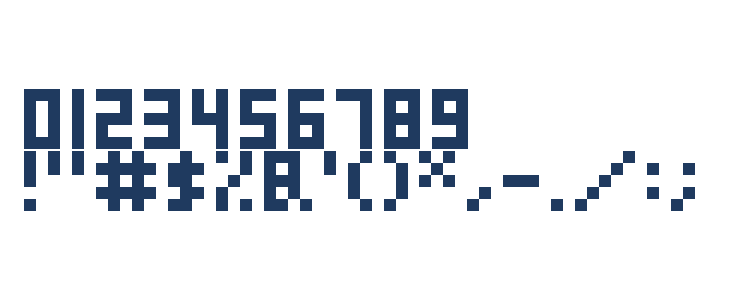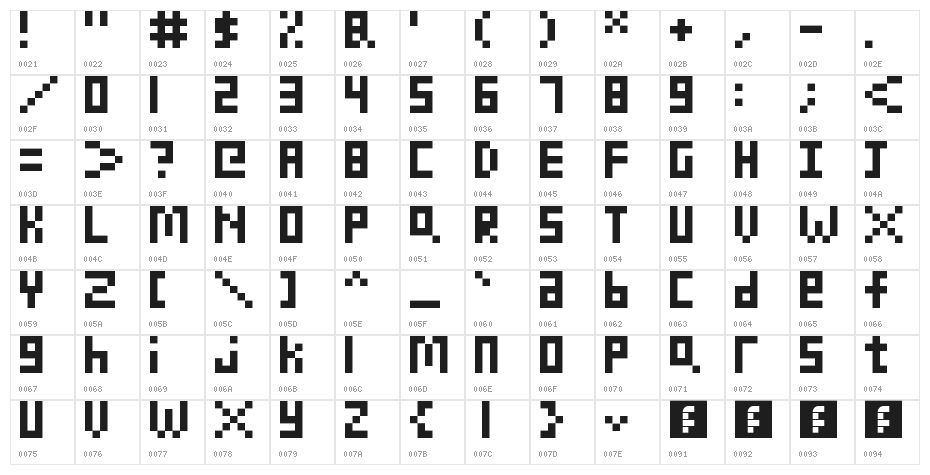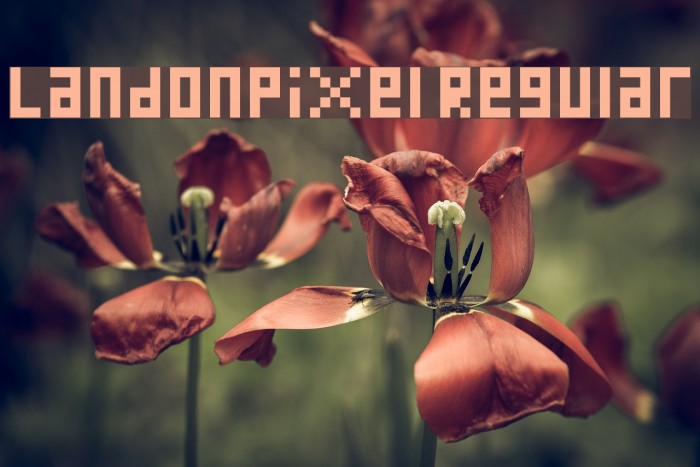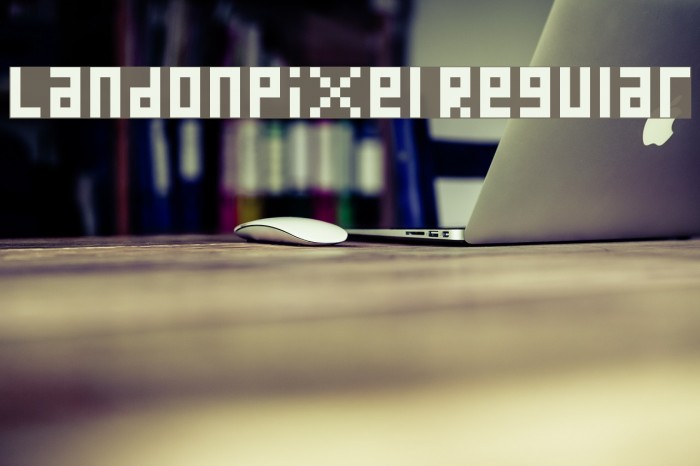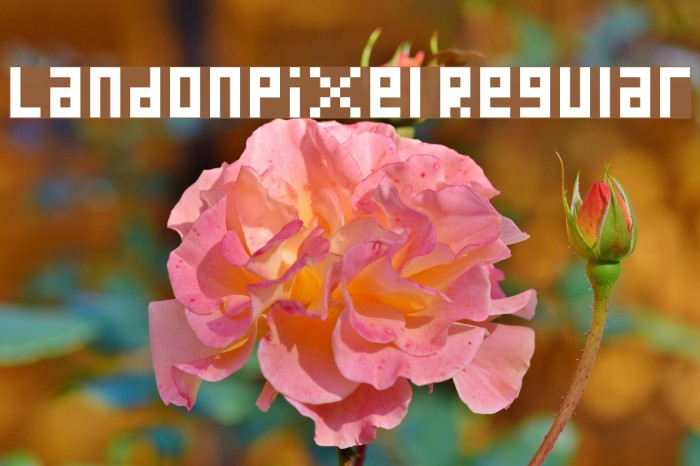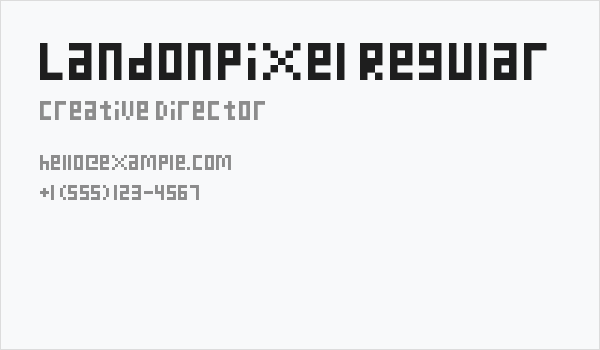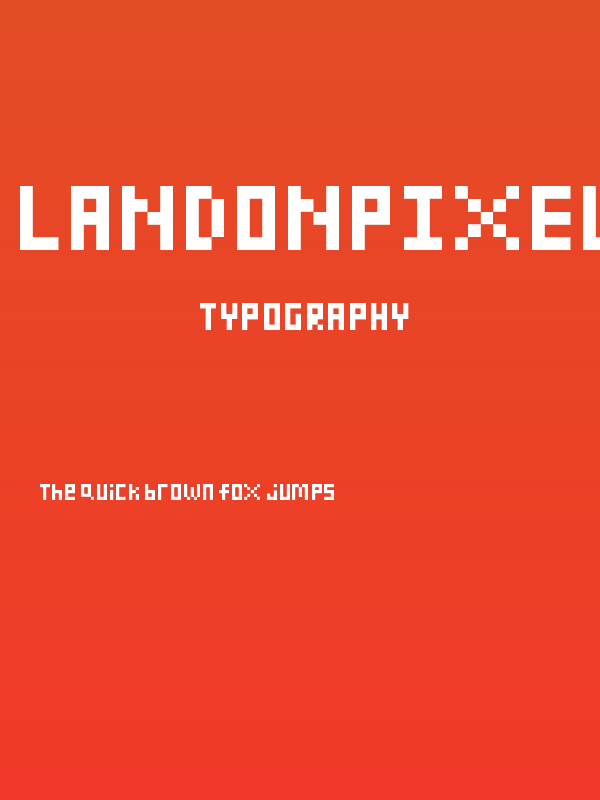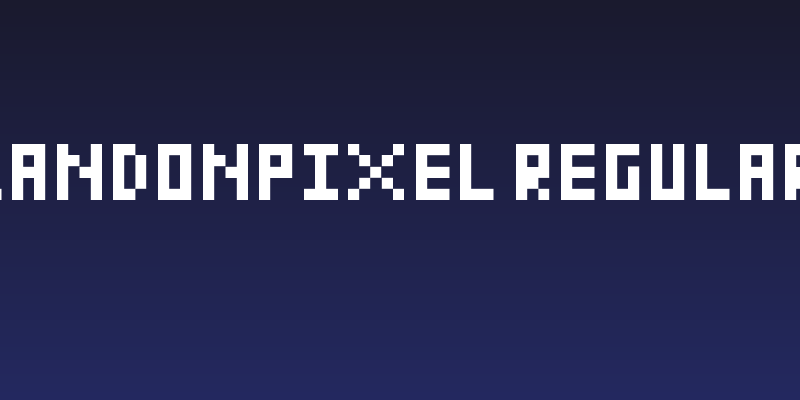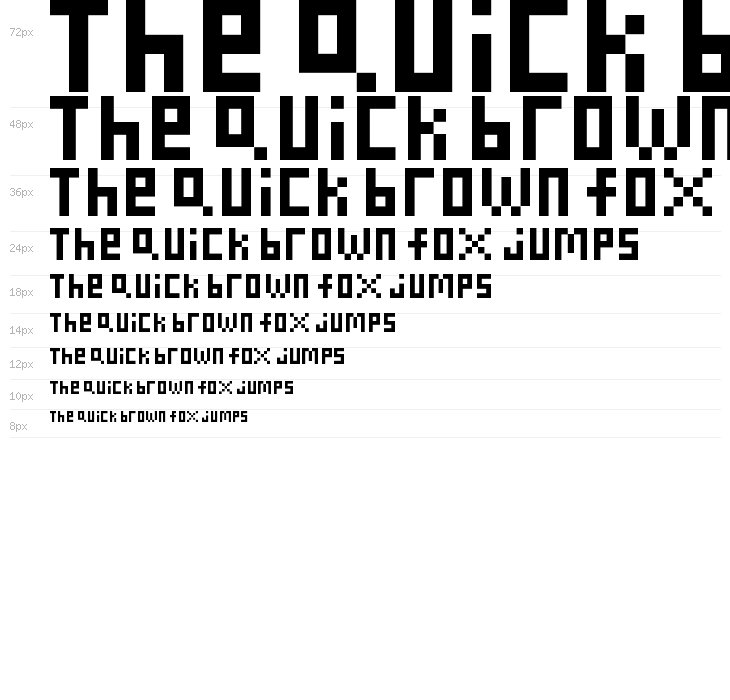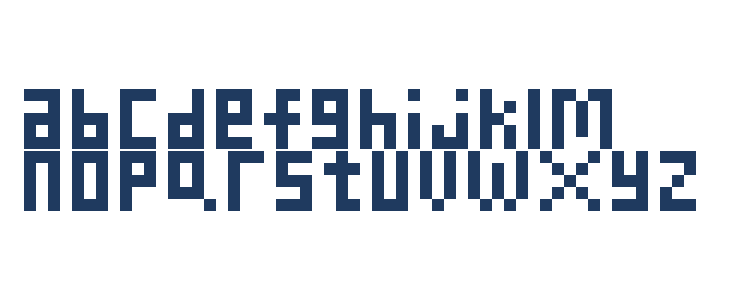
LandonPixel Regular Font
LandonPixel Regular Description
This font features a pixelated, blocky design reminiscent of classic video game graphics. Each character is constructed with a grid-like precision, giving it a distinctly digital and retro appearance. The uppercase and lowercase letters maintain a consistent height, contributing to a uniform look. Numbers and special characters follow the same pixelated style, ensuring cohesion across all elements. The font's geometric nature makes it highly legible, even at smaller sizes, while its boldness ensures it stands out. The overall aesthetic is playful yet structured, making it ideal for projects that require a nostalgic or tech-inspired feel.
| Overall Style | Retro, Digital |
| Use Case | Headlines, Logos, Digital Art |
| Proposed Projects | Ideal for retro video game designs, tech-themed posters, digital art, and websites with a nostalgic theme. |